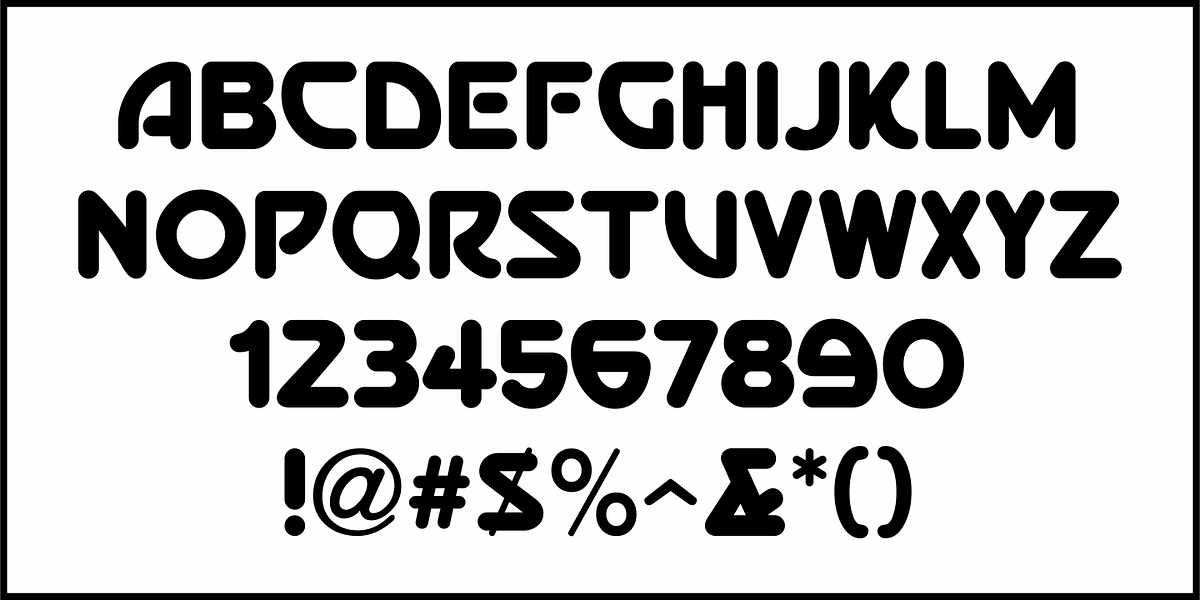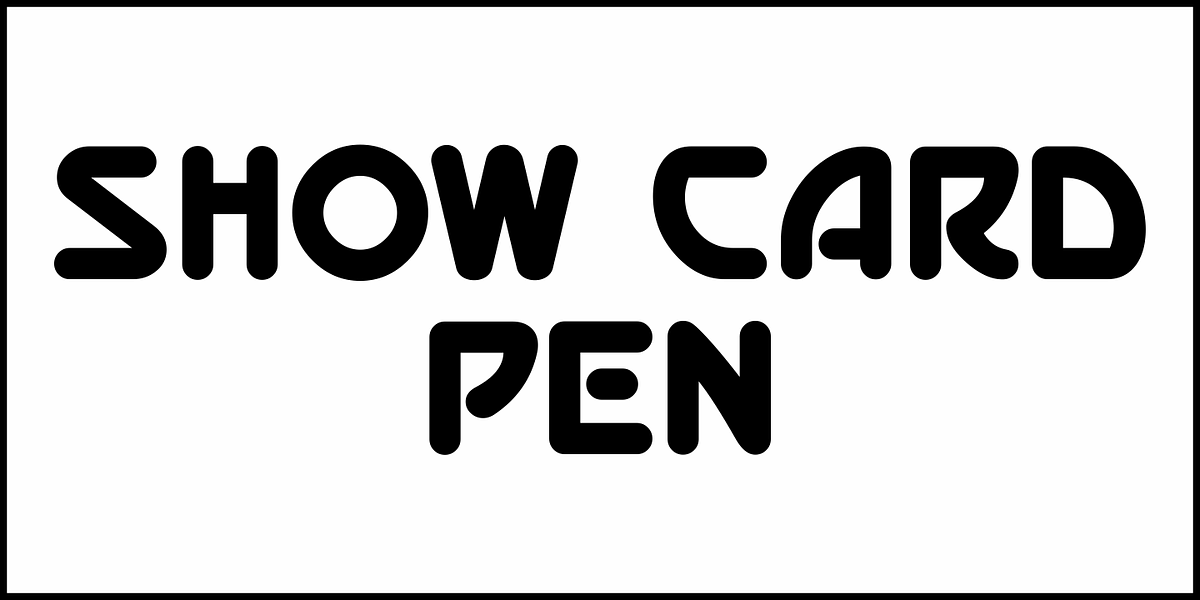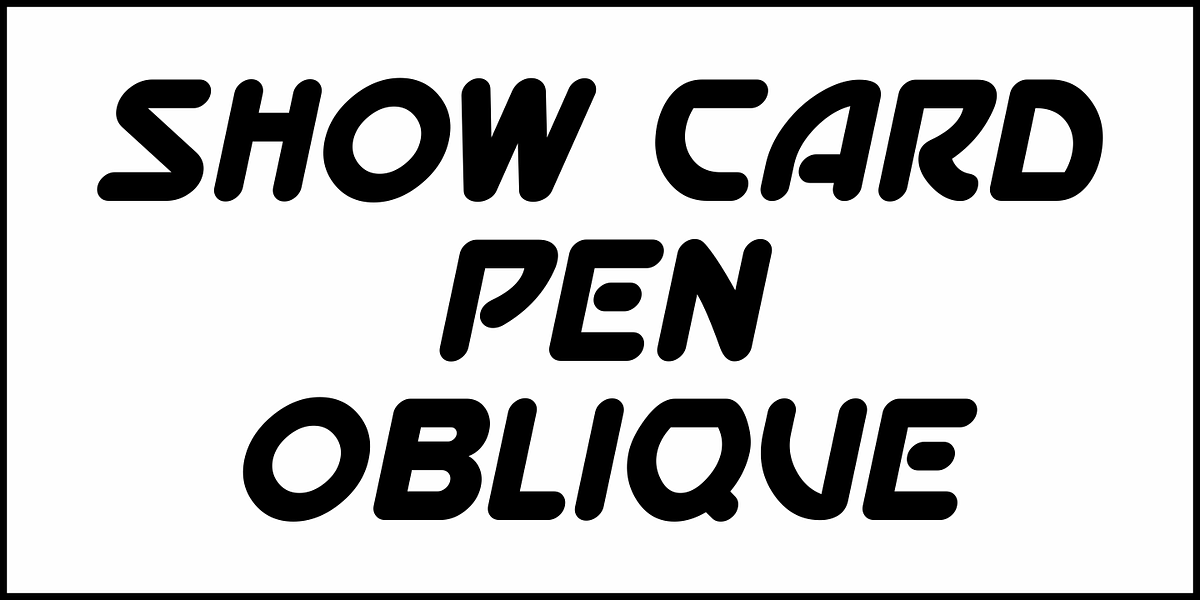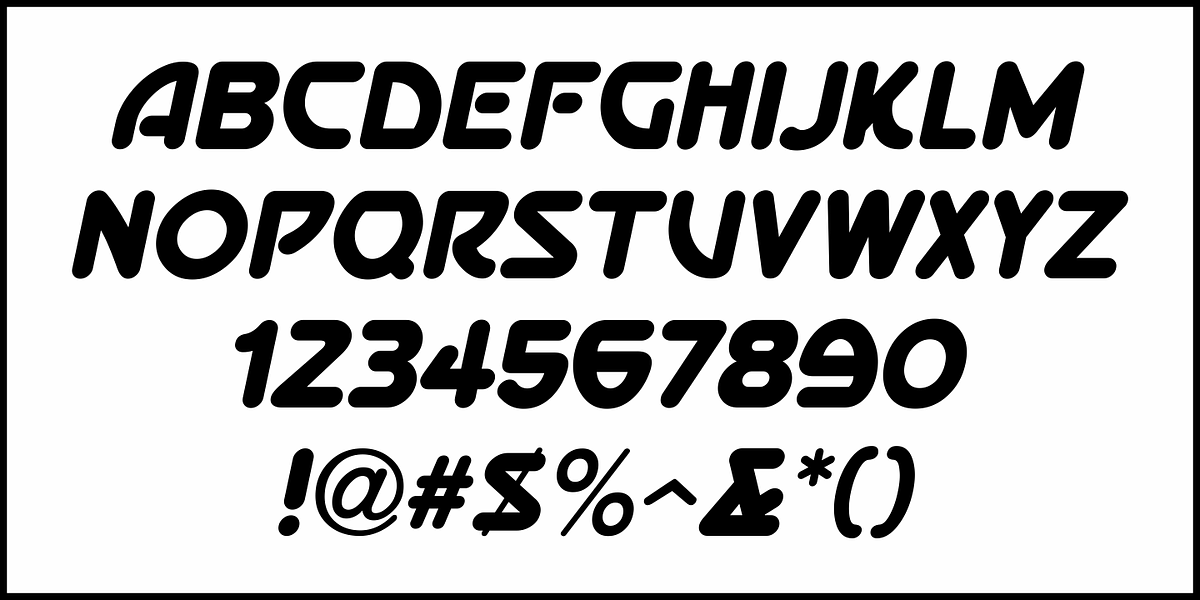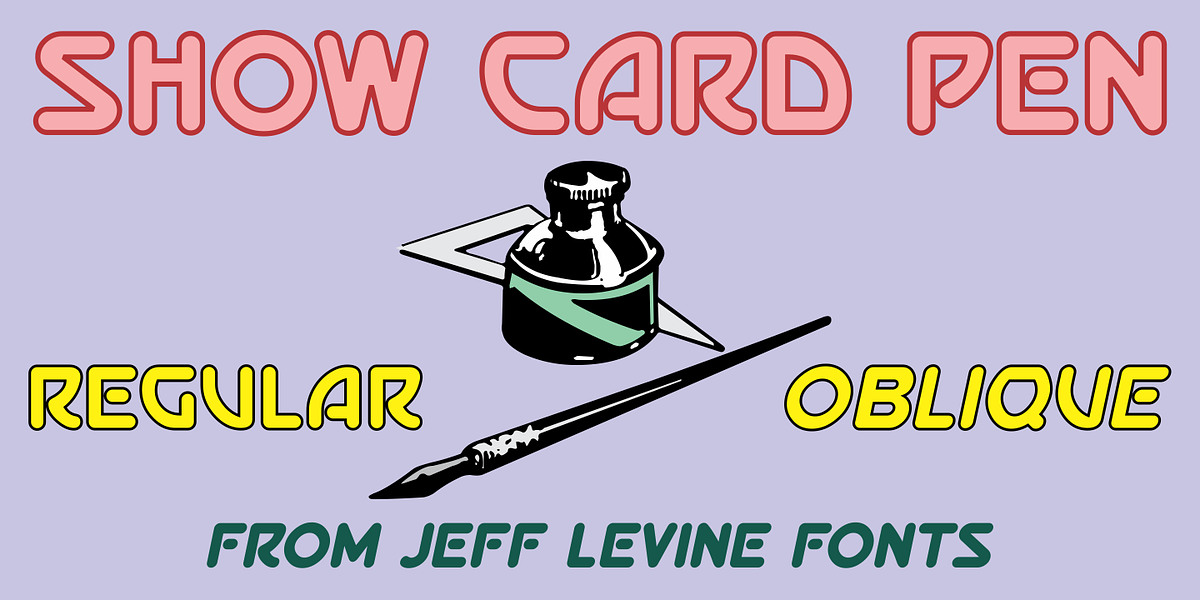
Show Card Pen JNL
The 1920 edition of “How to Paint Signs and Sho’ Cards” by E. C. Matthews offered a number of examples of then-modern lettering styles for sign painters and show card writers.
A bold display alphabet made with a round lettering nib is now available as Show Card Pen JNL, in both regular and oblique versions.